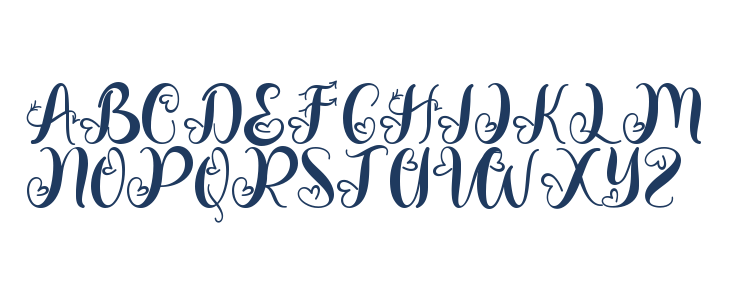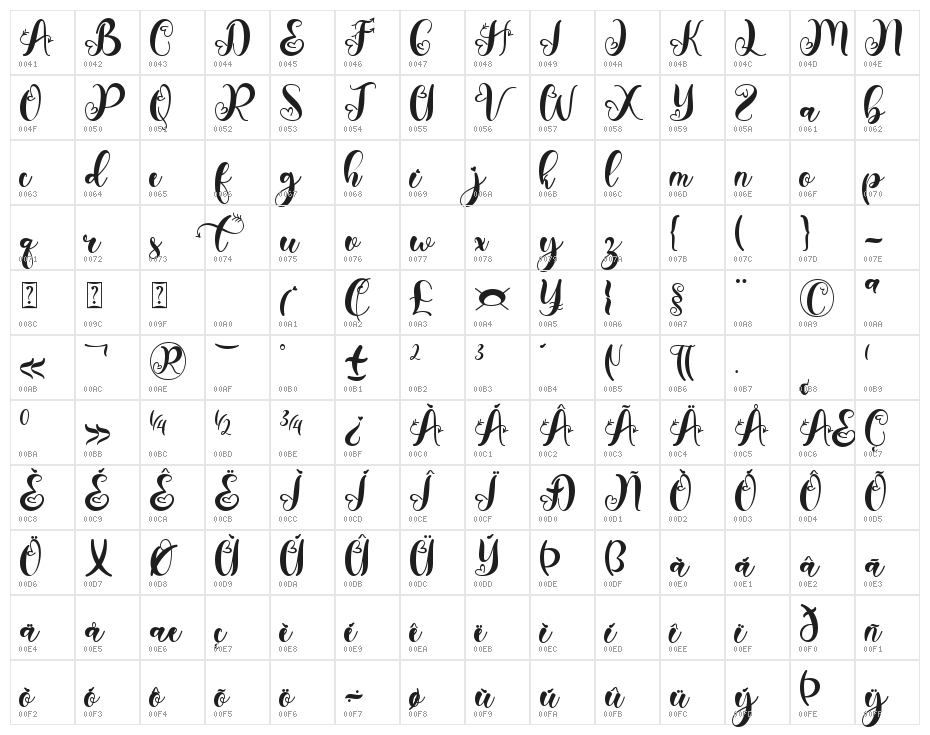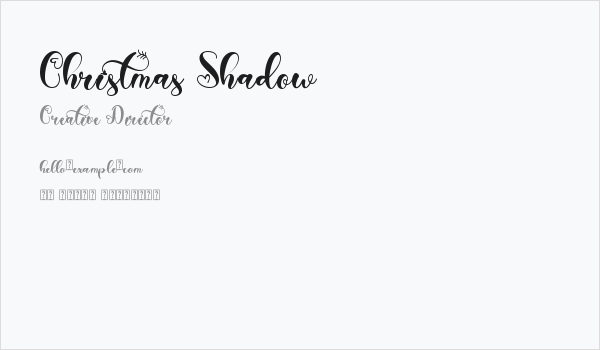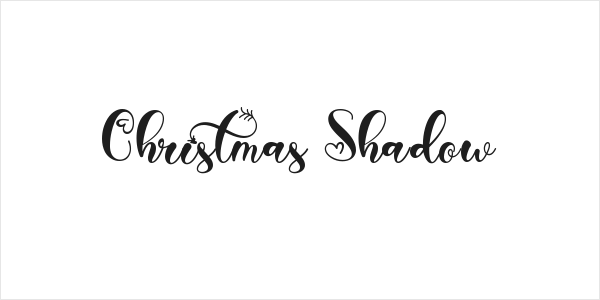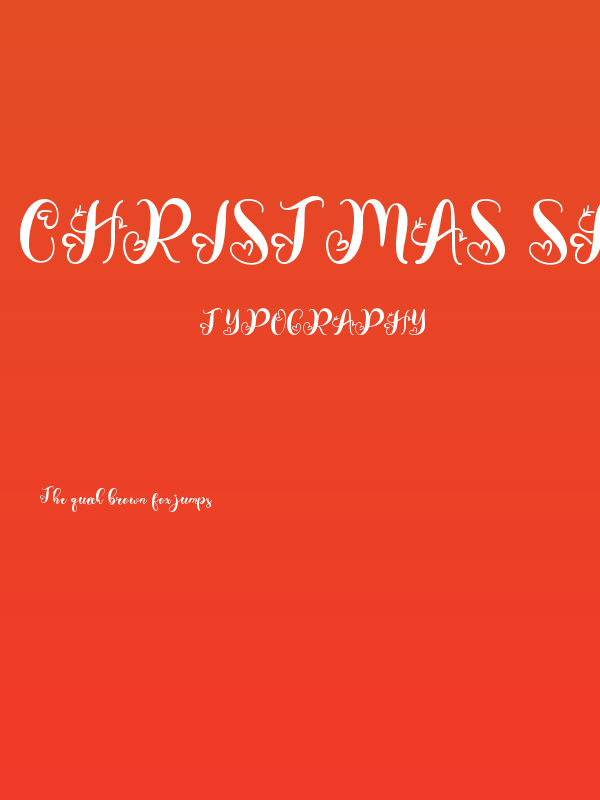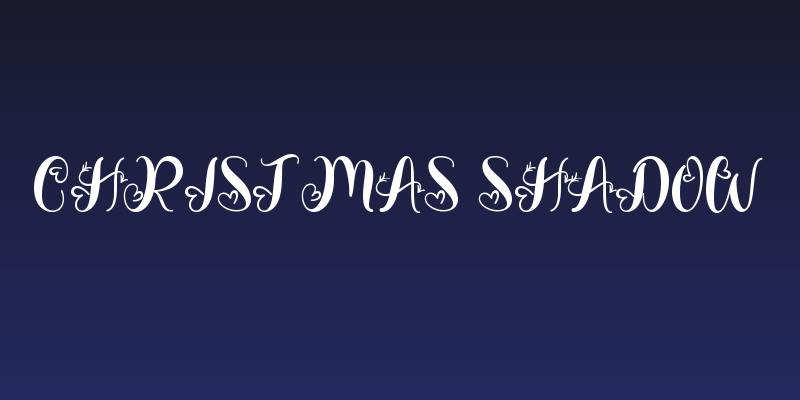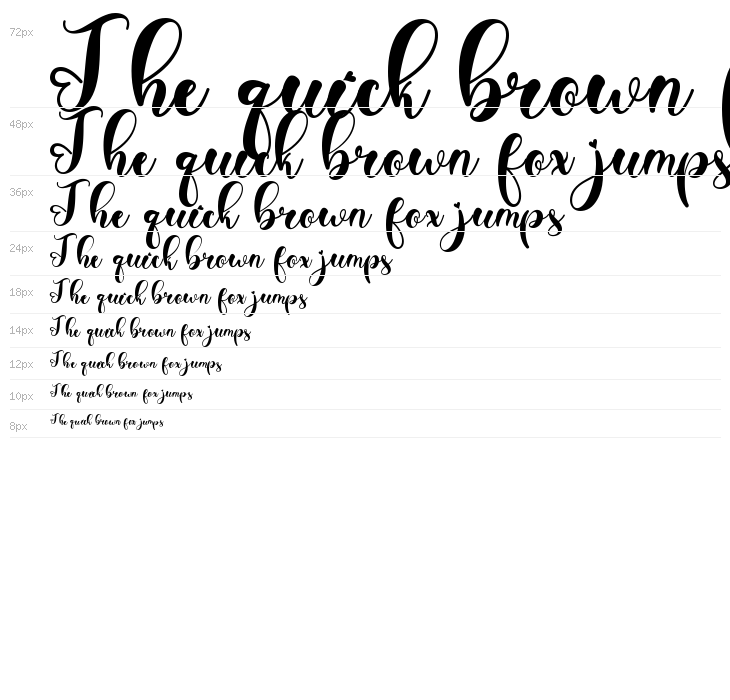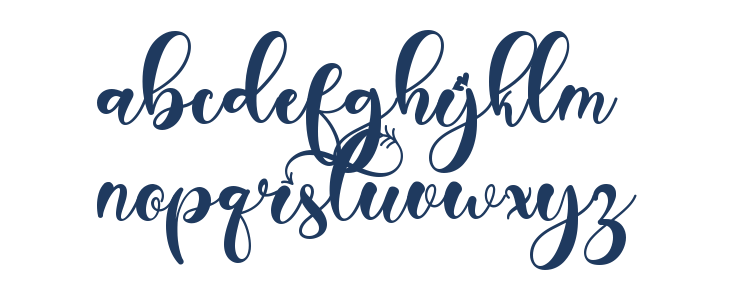
Christmas Shadow Font
Christmas Shadow Description
A decorative script font with elaborate swashes and curls, featuring playful, whimsical letterforms and heart-shaped accents. The strokes are bold and flowing, giving a festive and ornate appearance suitable for celebratory themes.
| Overall Style | Decorative, Festive, Whimsical |
| Use Case | Headlines, Logos, Greeting cards, Invitations |
| Proposed Projects | Holiday cards, festive invitations, event posters, branding for seasonal products, decorative signage. |